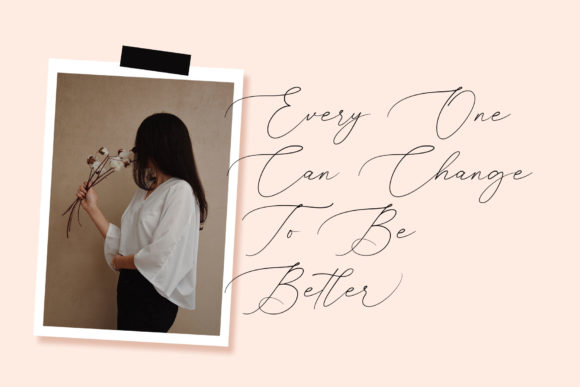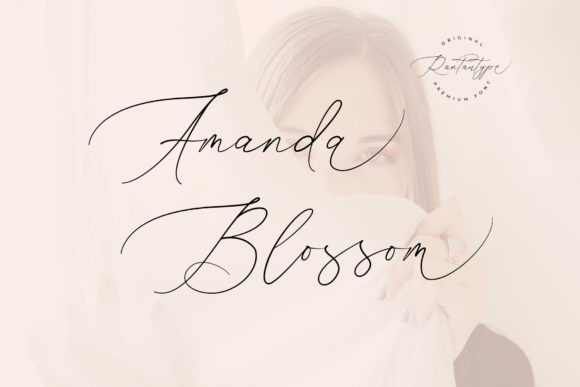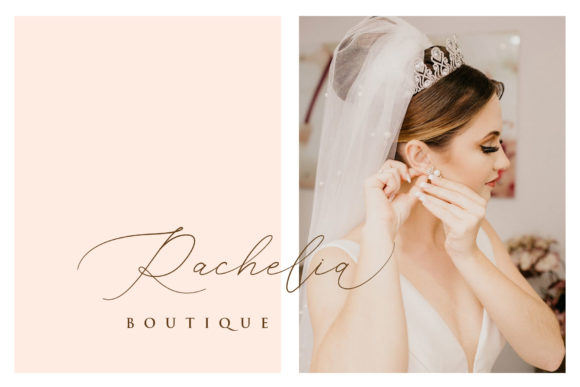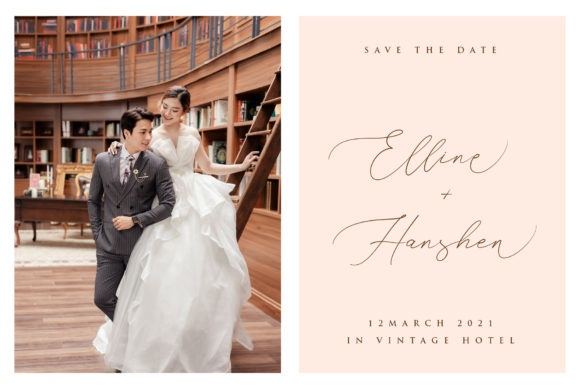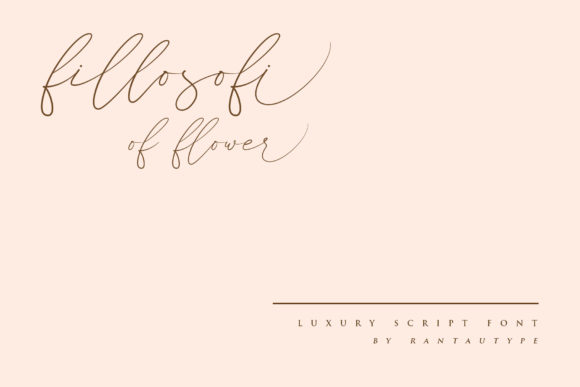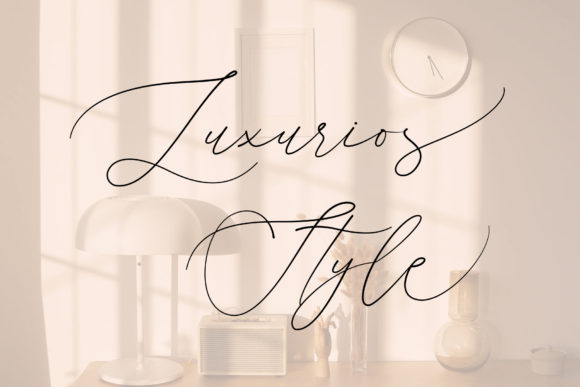
Introduction to Femeanly Font
Have you ever been working on a creative project, pouring your heart and soul into it, only to feel like something’s missing? A missing piece that would elevate your design from good to great? That’s where the Femeanly Font comes in – a delicate and elegant handwritten font that’s about to become your new best friend.
With its high-quality design and well-rounded letters, the Femeanly Font is a design resource that’s sure to impress. Whether you’re working on a branding project, creating social media graphics, or designing a wedding invitation, this font is the perfect addition to take your designs to the next level. And the best part? It’s available for free download, so you can access it whenever you need it.
As a designer, you know how valuable it is to have a versatile design resource like the Femeanly Font at your disposal. With its transparent background and PUA-encoded glyphs, you’ll be able to access all the swashes and variations you need to create truly spectacular designs.
Key Features of Femeanly Font
- High-quality, elegant design suitable for creative projects and design resources
- Unique characteristics include delicate flourishes and ornate details, perfect for adding a touch of sophistication to designs
- Perfect for use in logos, branding materials, invitations, and other creative projects where a high-end, elegant look is desired
Honest Review: Femeanly Font
I recently stumbled upon the Femeanly Font, and I must say, it’s been a game-changer for my design projects. This high-quality font is perfect for creating a unique and creative project.
One of the things that I love about Femeanly Font is its versatility. It’s available for free download, making it an excellent design resource for designers on a budget. The transparent background also allows for seamless integration with other design elements.
- High-quality design and details
- Perfect for creative projects and design work
- May not be suitable for formal or traditional designs
- Some users may find the font too ornate or busy
Overall, I’m thoroughly impressed with the Femeanly Font. It’s a valuable addition to any designer’s toolkit, and I highly recommend it for anyone looking to add a touch of creativity to their design projects.
Tips for Getting the Most Out of Femeanly Font
To get the most out of the Femeanly Font, experiment with different font sizes, colors, and styles to find the perfect look for your project. You can also use the font in combination with other design elements to create a unique and eye-catching design.
Common Use Cases for Femeanly Font
The Femeanly Font is perfect for a wide range of creative projects, including logos, social media graphics, posters, and business cards. It’s also great for creating presentations, documents, and other professional-looking materials.
When compared to Femeanly Font, Great Vibes Font has a more refined and polished look, making it suitable for formal events and professional projects. However, it lacks the whimsical feel of Femeanly Font, which may be a drawback for designers who want to convey a more playful tone.